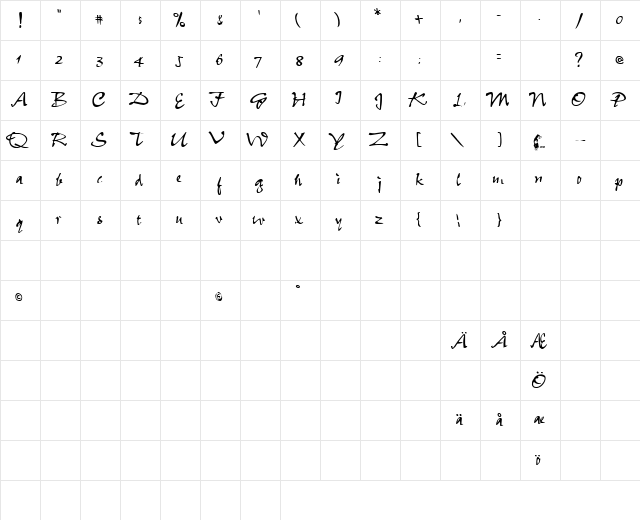
SnareDrum Script Upright Regular
Design Context for SnareDrum Script Upright Typeface
SnareDrum Script Upright flows with the natural rhythm of handwritten lettering, making it ideal for designs that call for warmth and personal expression.
Font Pairing: Combine SnareDrum Script Upright with a simple geometric sans for maximum contrast — the tension between flowing curves and clean structure is a classic typographic pairing.
Pro Tip: Use SnareDrum Script Upright for short runs of text — names, titles, or taglines. Extended body copy in script faces tires the eye quickly.